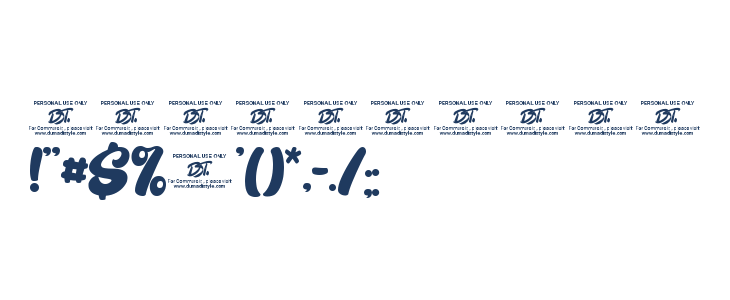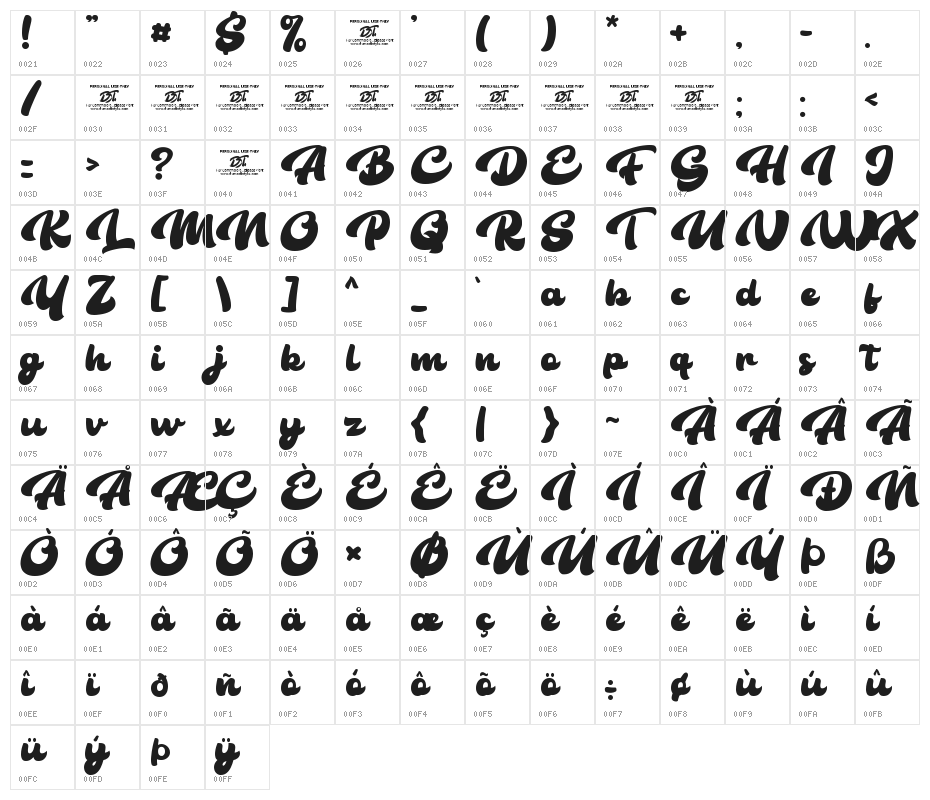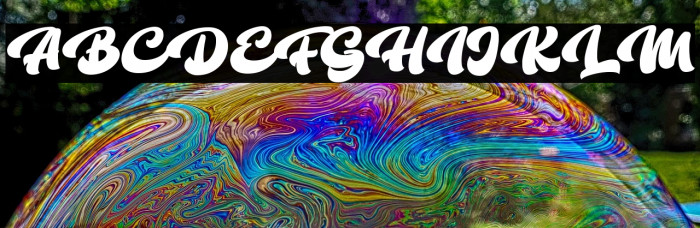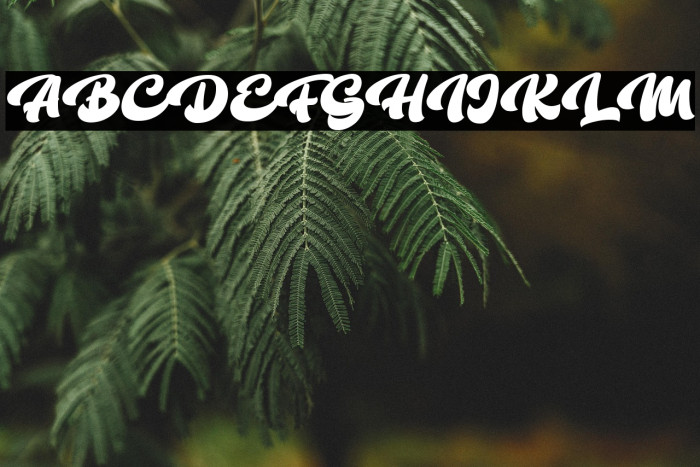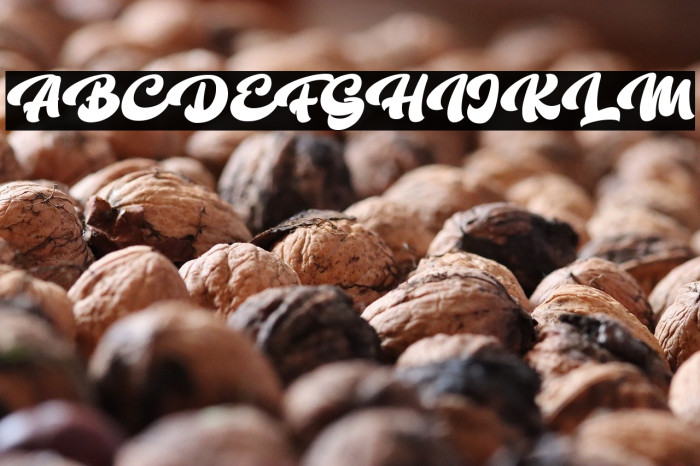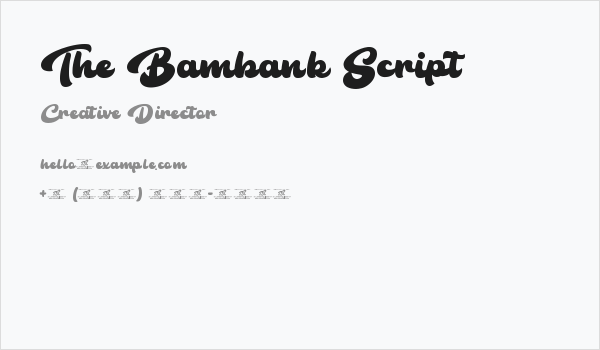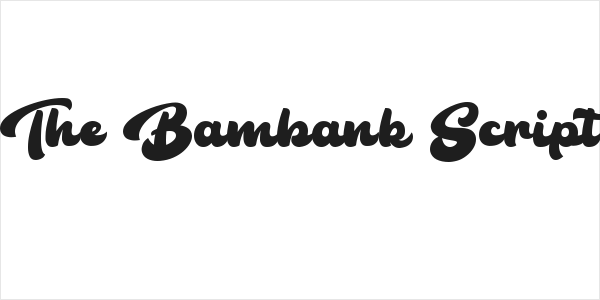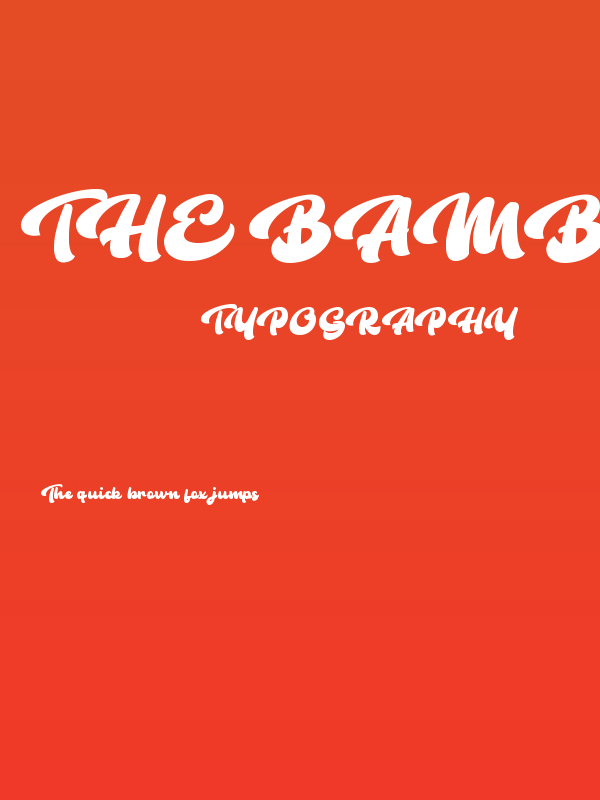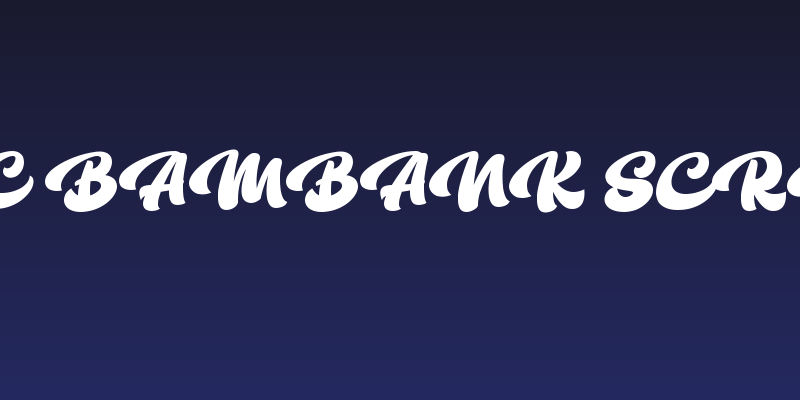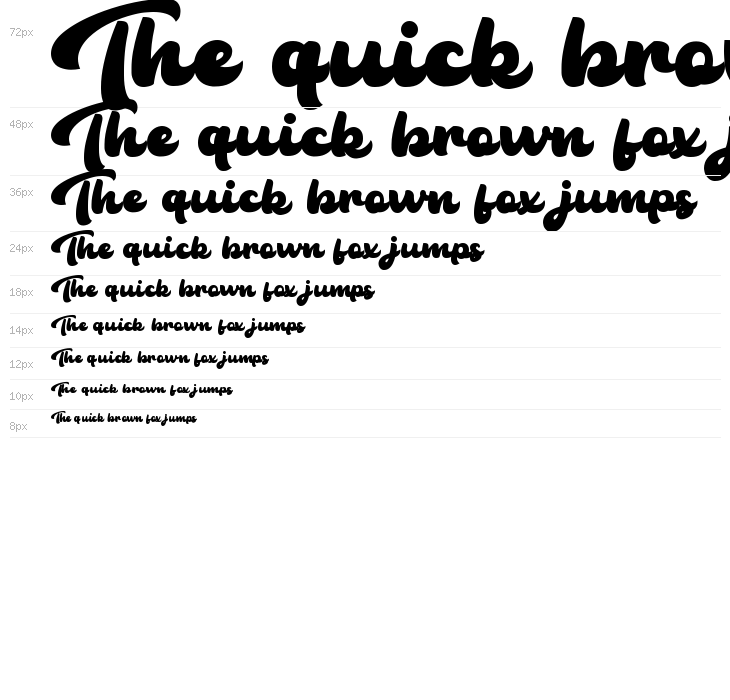
The Bambank Script Font
The Bambank Script Description
This font features a bold and flowing script style, characterized by its smooth, connected strokes and rounded edges. The uppercase letters are elegantly crafted with a slight slant, giving a sense of movement and fluidity. The lowercase letters maintain a consistent thickness, enhancing readability while preserving the script's artistic flair. The numerals and special characters are designed to complement the overall style, ensuring a cohesive look across all text elements. This font exudes a playful yet sophisticated vibe, making it suitable for a variety of creative applications.
| Use Case | Logos, Headlines, Invitations |
| Proposed Projects | Ideal for branding, invitations, greeting cards, and creative projects that require a personal touch. |